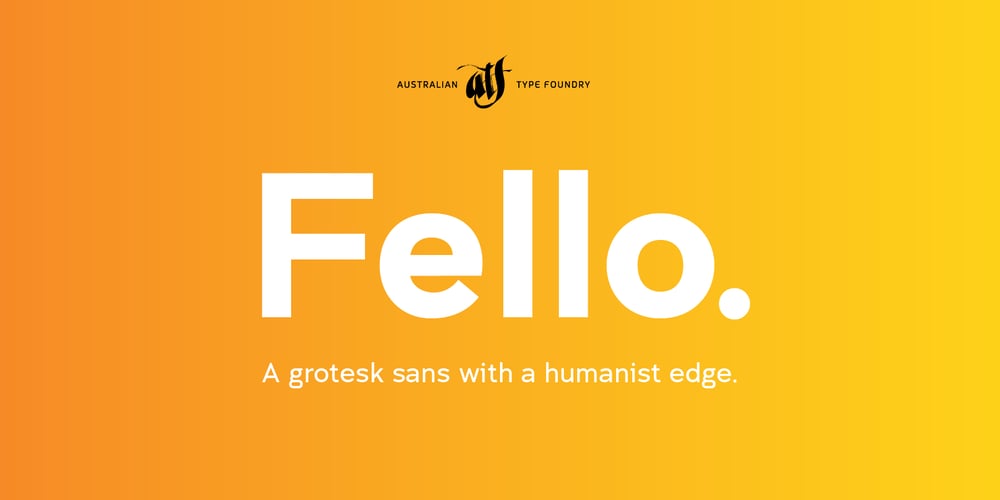
Fello Font Family was designed by Wayne Thompson and published by Australian Type Foundry. Fello contains 3 styles and family package options. Fello is a geometric sans-serif with a university pedigree. Featuring some of the quirkiest alternates you will ever see, Fello is designed with a modernist tone of voice. Fello is great for display use but also has a large character set and includes many Opentype features, which makes it suitable for text use too.